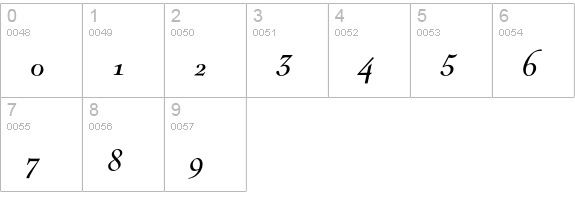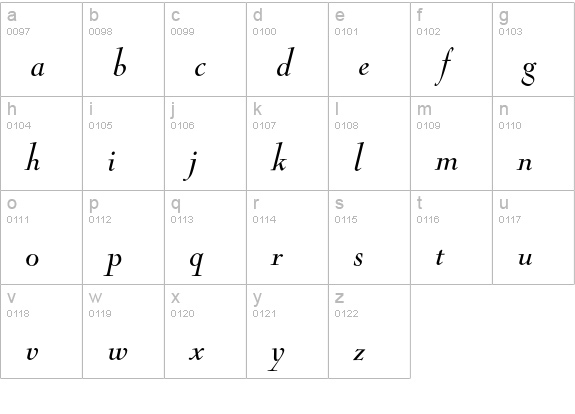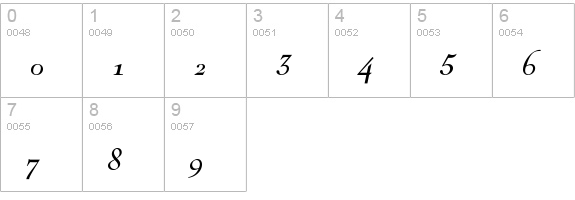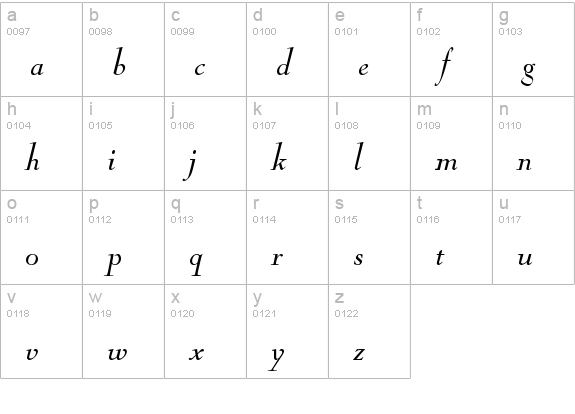
NicolasCochinEF-RegularIta Font Details
NicolasCochinEF-RegularIta is a stylish and elegant font that adds a touch of sophistication to any project. Its sleek curves and slanted italics give a modern yet classic feel, making it suitable for a wide range of design applications. Whether you're working on branding materials, invitations, or editorial layouts, this font is sure to make a statement. What's even better is that NicolasCochinEF-RegularIta is available for free download at FontsMarket.com. You can easily access this versatile typeface and enhance your design projects without any cost. Don't miss out on the opportunity to elevate your work with this high-quality font that combines timeless charm with a contemporary edge.